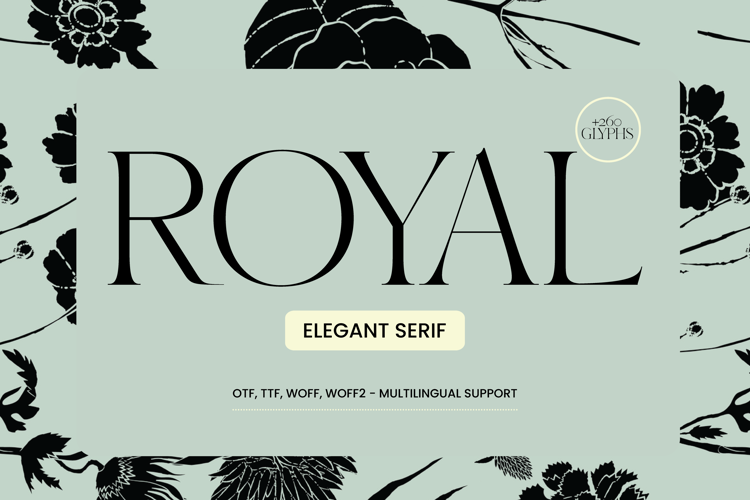
ROYAL Font
π¨ Font Name: Royal by Minimalist Art Studio
π¨ Font Description: Royal is an elegant serif with multilingual supportβideal for luxury branding, editorial design, and timeless packaging.
β Complete Latin set + multilingual diacritics
β Alternates, stylistic sets & ligatures
β Numbers, small caps, and extended punctuation
β Bonus italics and family styles